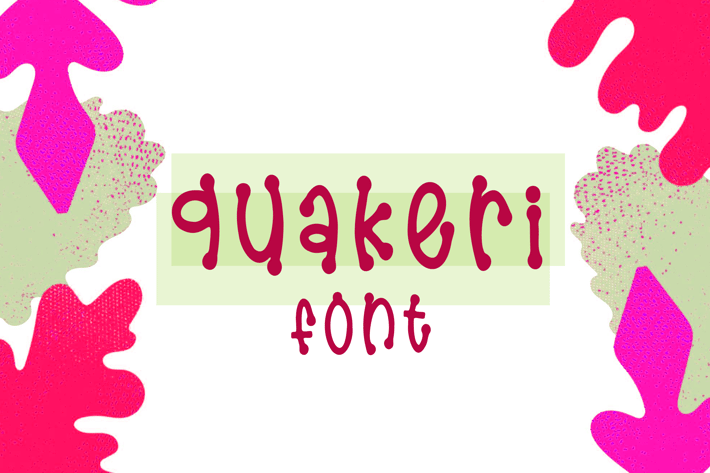
Quakeri Font
Quakeri font is a display typeface and is perfect for name card, banner, t-shirt, poster, logo, magazine, cover, and headers, or even large-scale artwork.